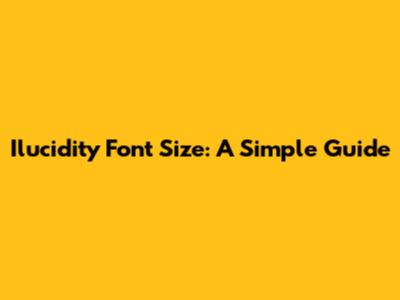
Hey everyone! Ever found yourself squinting at your screen, trying to make out the tiny text on a website or document? We've all been there, right? Ilucidity font size is a pretty common topic when people are looking to improve their reading experience. Whether you're using a specific platform called Ilucidity or just trying to adjust font sizes in general, understanding how to make text bigger is key to comfortable viewing. This isn't just about making things larger for the sake of it; it's about accessibility, readability, and ultimately, a much more pleasant user experience. Think about it – if you can't easily read what's on your screen, you're probably going to click away pretty fast. That's why getting the font size right is so darn important. We're going to dive deep into how you can easily adjust the font size on Ilucidity, and more broadly, why font size matters so much in the digital world. So, grab a coffee, get comfy, and let's figure out how to make that text pop!
Why Font Size is a Big Deal
Alright guys, let's get real. Ilucidity font size and font size in general isn't just some technical jargon; it's a crucial element for anyone interacting with digital content. Why? Because our eyes aren't always perfect, and neither are the screens we're staring at. A font size that's too small can lead to eye strain, headaches, and a generally frustrating experience. It can make complex information feel overwhelming and even impossible to digest. On the flip side, while making text larger is generally good, making it too large can also be problematic, leading to awkward line breaks and making it harder to scan content efficiently. The sweet spot is key. Think about the diversity of users out there. You've got folks with vision impairments, older users who naturally experience changes in their vision, and even younger users who might just be on a smaller device or in bright lighting conditions. Providing options to adjust font size makes your content accessible to a much wider audience. It's not just about being nice; it's about good design and inclusive practices. When content is readable, users are more likely to engage with it, spend more time on your page, or complete a task they set out to do. Imagine trying to read a recipe with tiny print while your hands are covered in flour – not ideal, right? It's the same principle online. A well-chosen and adjustable font size enhances comprehension, reduces cognitive load, and makes the overall experience smoother and more enjoyable. So, when we talk about Ilucidity font size, we're really talking about making information accessible and user-friendly for everyone.
Adjusting Font Size in Ilucidity
Now, let's get down to the nitty-gritty of actually changing the font size within the Ilucidity platform. Depending on where you're encountering Ilucidity – perhaps it's a website, an application, or a specific tool – the method might vary slightly. However, the general principles are usually quite similar. Often, you'll find font size controls within the user settings or preferences menu. Look for options labeled 'Display,' 'Appearance,' 'Text Size,' or 'Font Settings.' These are your go-to places. Ilucidity font size adjustments here are typically made using a slider, dropdown menu, or predefined size options like 'Small,' 'Medium,' 'Large,' or 'Extra Large.' If you're on a website built with Ilucidity, there might be a dedicated accessibility toolbar or widget, usually located in a corner of the screen, that allows you to quickly increase or decrease text size without affecting the overall layout too drastically. Sometimes, if you're using Ilucidity as a reader or in a document viewer, the controls might be integrated directly into the viewing interface, perhaps as icons that look like a larger 'A' and a smaller 'A'. Don't forget browser-level zoom! Even if Ilucidity's internal settings don't offer enough flexibility, most web browsers allow you to zoom in on any page, which effectively increases the size of all text and images. You can usually find this under the 'View' menu or by using keyboard shortcuts (Ctrl + '+' to zoom in, Ctrl + '-' to zoom out on Windows, or Cmd + '+' / Cmd + '-' on Mac). Experimenting with these different methods will help you find the perfect Ilucidity font size for your needs, ensuring a comfortable and efficient reading experience. It’s all about empowering you to customize your digital environment.
Best Practices for Font Size
When we talk about Ilucidity font size, it's not just about making text bigger or smaller. It's about adopting best practices that ensure optimal readability and user experience for everyone. One of the most fundamental principles is maintaining a minimum font size that is legible. While aesthetics are important, they should never come at the expense of clarity. For body text, a common recommendation is to aim for a font size between 16px and 18px for web content viewed on a standard desktop monitor. However, this can vary depending on the font family used, its x-height (the height of lowercase letters like 'x'), and the line height. You also want to consider the context. Mobile devices, for instance, often benefit from slightly larger base font sizes due to smaller screen dimensions and the typical viewing distance. Another crucial aspect is responsive design. This means your font sizes should adapt fluidly to different screen sizes and devices. What looks great on a large desktop monitor might become unreadable on a small smartphone. Implementing relative units like em or rem in web development is a great way to achieve this, allowing font sizes to scale proportionally. Contrast is also vital. Even with the perfect font size, text that doesn't have enough contrast against its background will be difficult to read. Ensure a sufficient color contrast ratio (WCAG guidelines recommend at least 4.5:1 for normal text). Finally, provide users with control. While you might set a default Ilucidity font size, offering users the ability to further adjust it, as we discussed in the previous section, is paramount for accessibility. This caters to individual preferences and visual needs, making your content truly inclusive. By following these best practices, you ensure that the text, whether on Ilucidity or elsewhere, is not just seen, but truly understood and appreciated by your audience.
Font Choice and Readability
Beyond just the Ilucidity font size, the actual choice of font plays a monumental role in how readable your text is. Guys, you might think all fonts are created equal, but trust me, they're not! Different typefaces have distinct characteristics that can significantly impact the reading experience. For body text, where readability is king, sans-serif fonts (those without the little decorative strokes, like Arial or Open Sans) are generally preferred for digital screens. They tend to be cleaner and render more crisply at smaller sizes. Serif fonts (like Times New Roman, with those little feet on the letters) can sometimes be harder to read on screens, especially at lower resolutions or smaller sizes, though they can add a touch of elegance and are often used for print. The x-height of a font is another critical factor. Fonts with a larger x-height (the height of lowercase letters like 'x', 'a', 'c') often appear larger and are more legible at the same point size compared to fonts with a smaller x-height. This means a 14pt font with a large x-height might be perfectly readable, while a 14pt font with a small x-height could feel cramped. Consider letter spacing and line spacing (leading) as well. Fonts that are too tightly spaced can blur together, and lines that are too close together make it hard to track from one line to the next. Adequate white space around and between letters and lines is essential for comfortable reading. When thinking about Ilucidity font size, always pair it with a font that is designed for legibility. Choosing a font with clear, distinct letterforms and appropriate spacing will make a huge difference, even if you're only making minor adjustments to the size. It's a holistic approach: the right size and the right font working together create the best possible reading experience.
Accessibility and Ilucidity
Making digital content accessible is no longer just a nice-to-have; it's a must-have, and Ilucidity font size is a key component of this. For users with visual impairments, the ability to adjust text size is not a luxury but a necessity. Many users rely on larger text to be able to read content effectively. This is where platforms like Ilucidity have a responsibility to provide robust options. By ensuring that font sizes can be easily increased, Ilucidity helps users with conditions like presbyopia (age-related farsightedness), cataracts, or other vision challenges to engage with the content. Beyond just size, think about how font choices and spacing impact accessibility. A highly legible font, as we discussed, makes a significant difference. Clear contrast ratios between text and background are also crucial, adhering to standards like the Web Content Accessibility Guidelines (WCAG). These guidelines provide benchmarks for making web content usable by people with a wide range of disabilities. When a platform prioritizes accessibility features, it demonstrates a commitment to inclusivity. This means thinking about users who might be using screen readers (which often rely on semantic HTML structure that supports text resizing) or those who need higher contrast modes. For developers working with Ilucidity, implementing responsive typography and ensuring that zoom functionality works seamlessly is vital. It’s about building an experience that doesn’t exclude anyone. So, when you're adjusting the Ilucidity font size, remember you're contributing to a more equitable and user-friendly digital world. It's a powerful way to ensure that information is available to everyone, regardless of their visual abilities.
Conclusion
So there you have it, guys! We've explored the importance of Ilucidity font size, why it matters so much for readability and user experience, and how you can easily adjust it. Whether you're tweaking settings within the Ilucidity platform itself or using browser-level zoom, the goal is always the same: to create a comfortable and accessible reading environment. Remember, font size is just one piece of the puzzle; font choice, contrast, and responsive design all work together to create content that's easy on the eyes and effective in communication. By paying attention to these details, you're not just improving your own viewing experience, but you're also making digital content more inclusive for everyone. Keep experimenting, find what works best for you, and don't hesitate to adjust those settings! Happy reading!